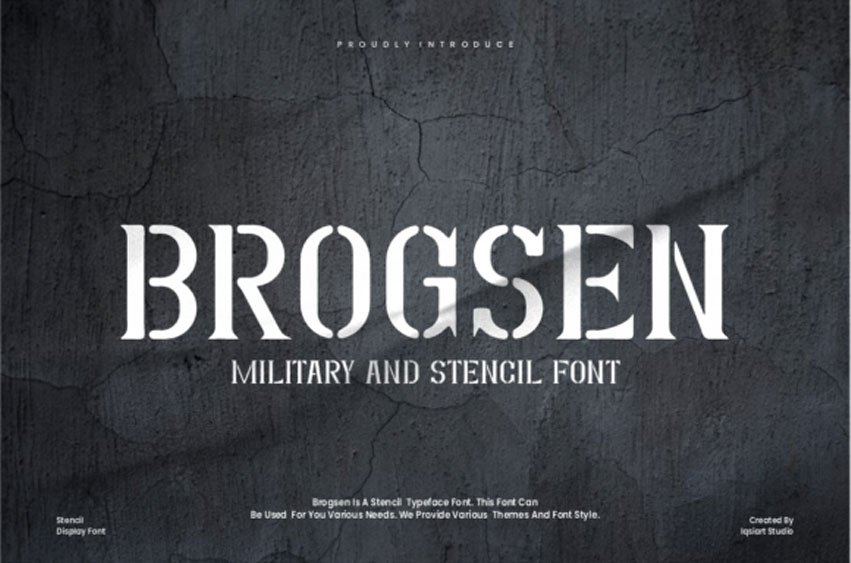
Brogsen Font is a powerful and commanding stencil display font that expertly blends military ruggedness with refined, flared serifs. The classic stencil breaks give it an industrial, authentic feel, while the structure provides a serious, sophisticated presence.
This typeface is perfect for military-themed designs, durable product branding, striking video game titles, strong apparel, and any project that requires a typeface with authority and a tough, vintage aesthetic.